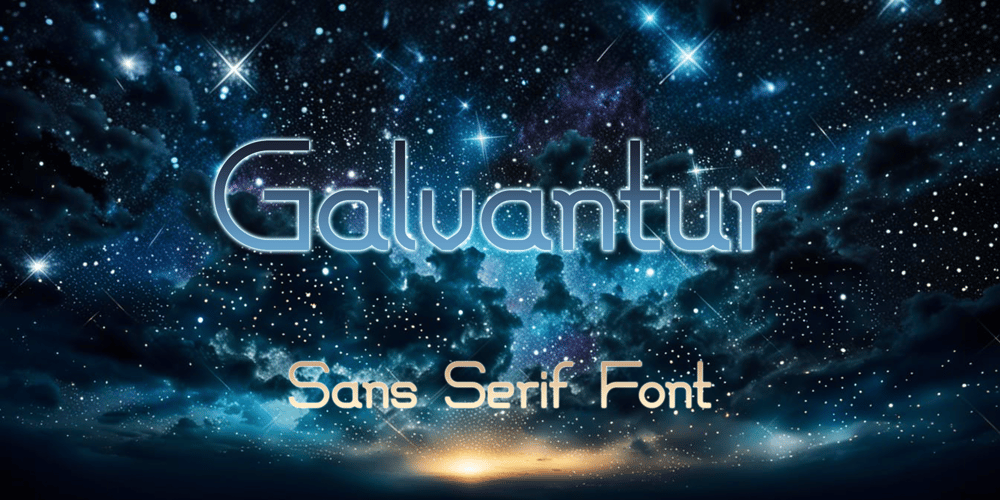
Galvantur Font Family was designed by Peter Ivanov and published by Ivangard Studios. Galvantur contains 7 styles and family package options. Galvantur is a sans serif font, suitable for a wide range of applications.The main characteristic of this font is the slightly alien feel it can invoke, allowing it to really appear different and stand out, comparative to what other sans serifs may look like. The multiple styles included can further help customize your designs and projects, whether it’s a body of text or an attention grabbing title. For example switching a block of text from regular style to oblique, can drastically change the overall appearance and feel of said text.Comes in 7 different styles – Regular, Oblique, Bold, Bold Oblique, Outlines, Bold Outlines and Oblique Outlines. To get an idea of the various styles, please check out the preview pictures or use the preview field to type in text.A full list of the glyphs included in this font can also be seen in the preview images.Galvantur supports Latin and Cyrillic based languages.The font includes a single alternative character for the letter “h”. Because of the lack of ligatures and alternates, the font is rather standardized and will work with any and all software/applications.